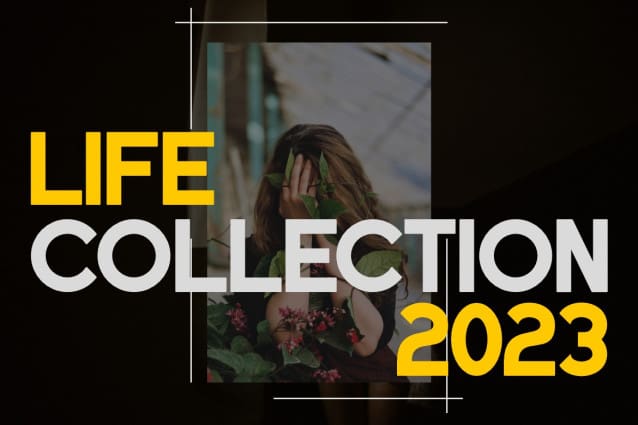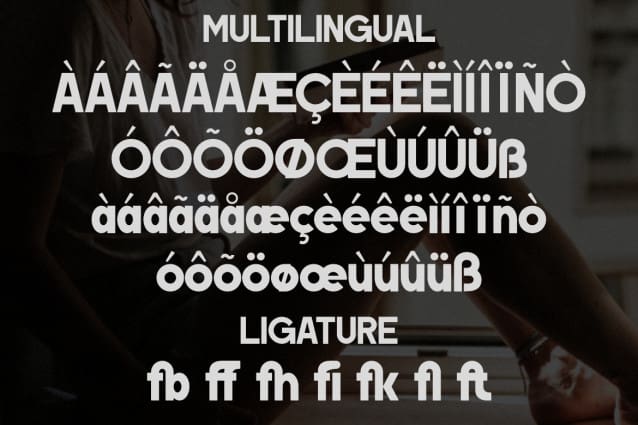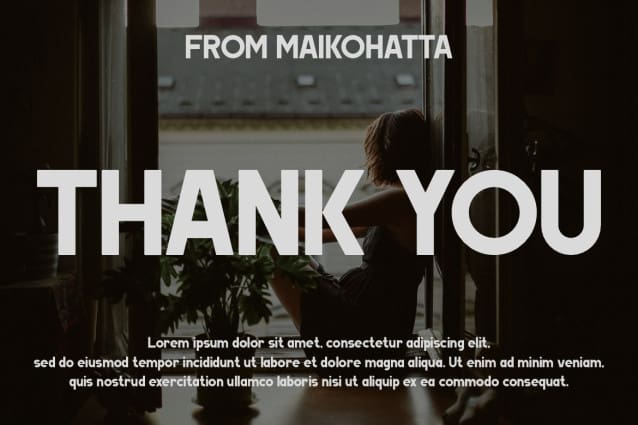
Hurdei Font
Hurdei Font, a simple and sans serif font. So perfect for you who needs a typeface for logo designs, magazine, social media, brochure, and many more.